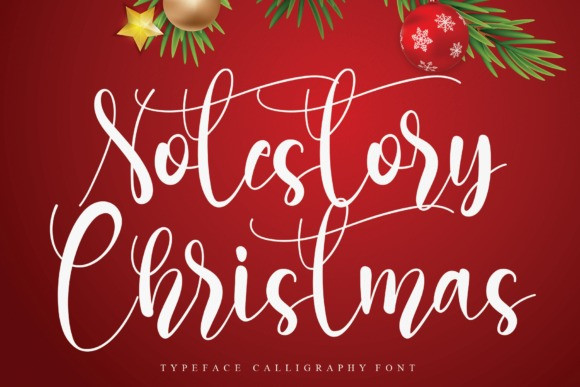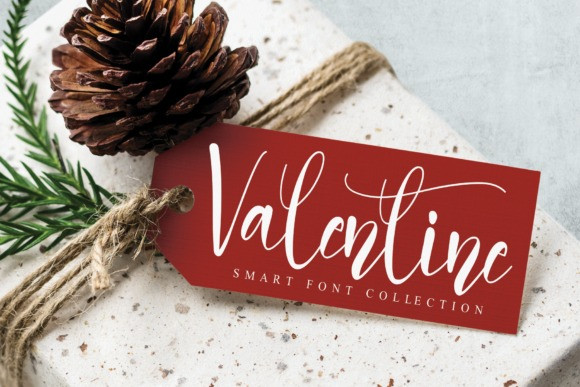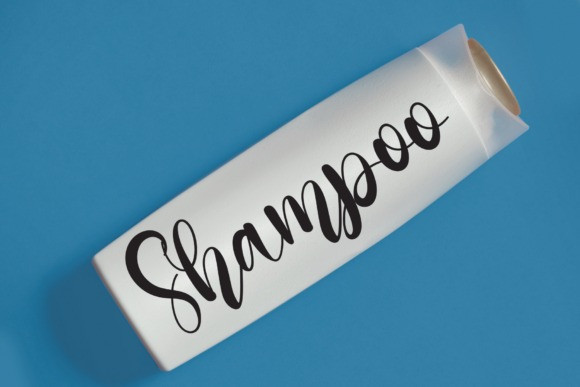
Notestory Christmas Calligraphy Font
Notestory Christmas is a warm, delicate and exquisite script font, with a unique feel and a stunning impact. It will add a luxury spark to any design project that you wish to create!